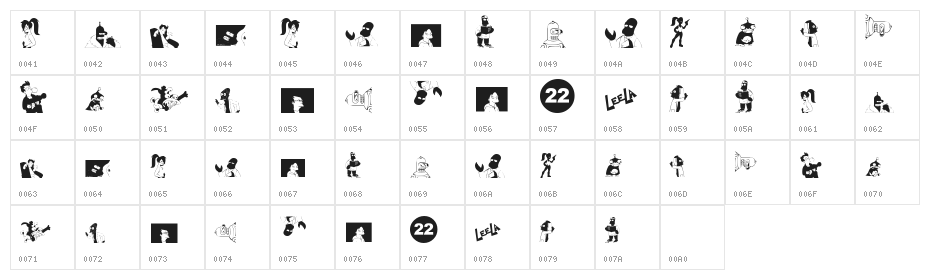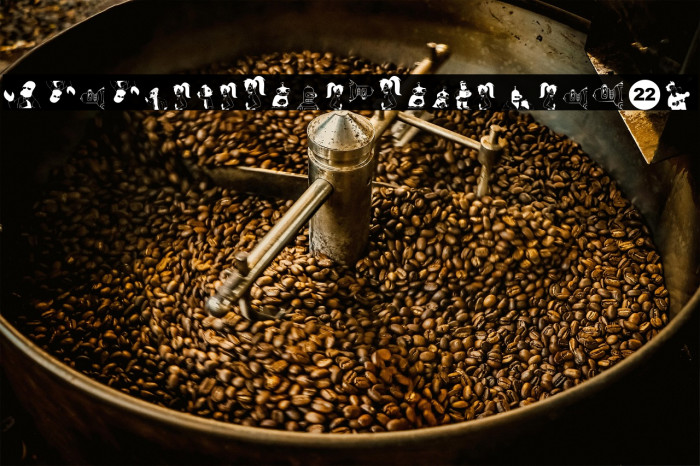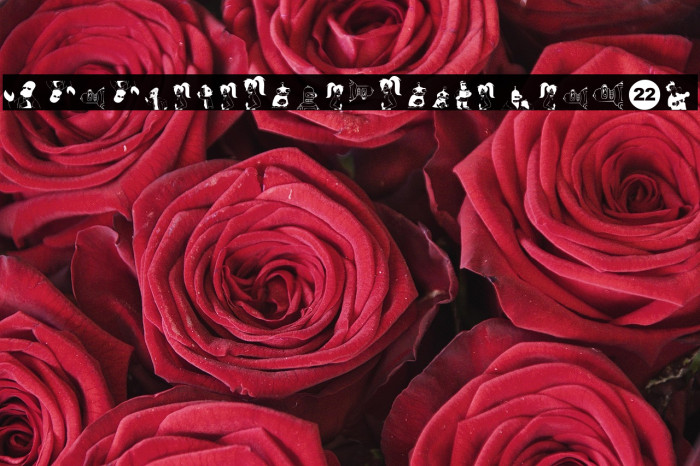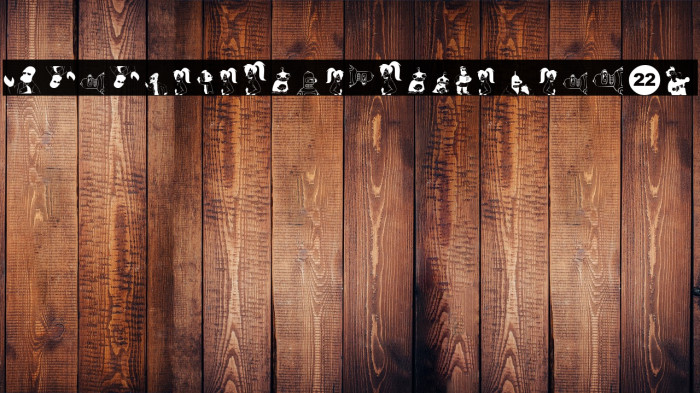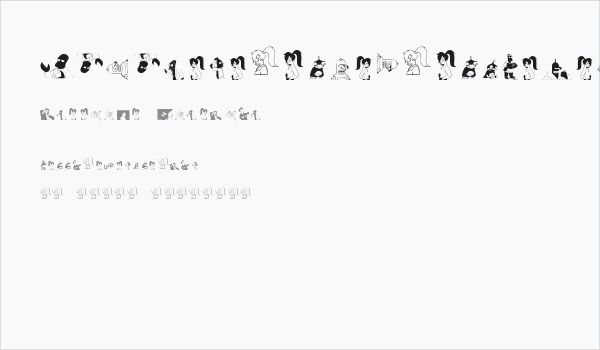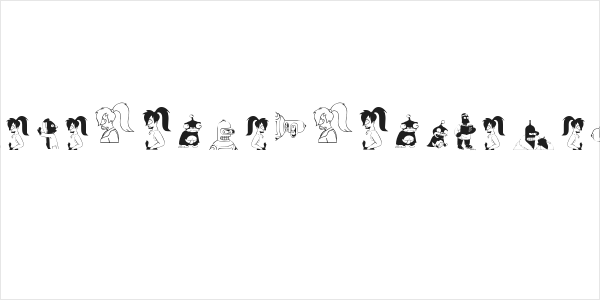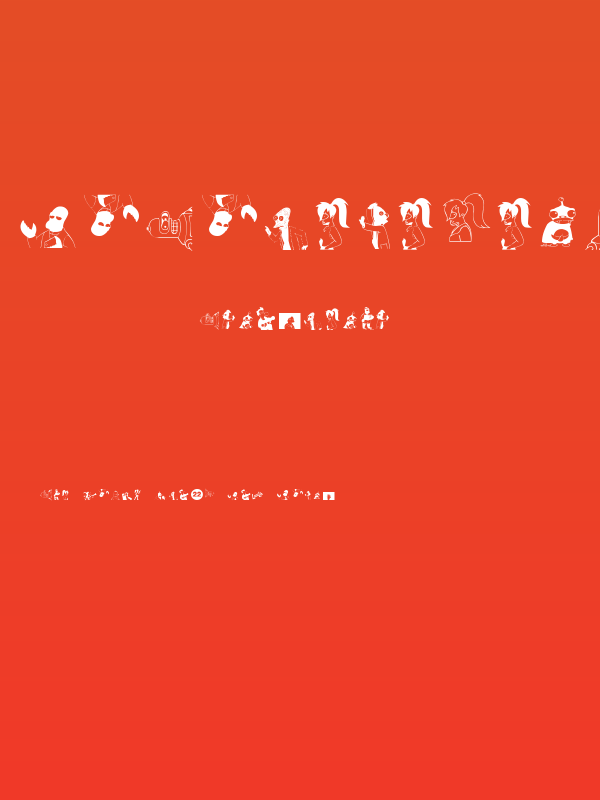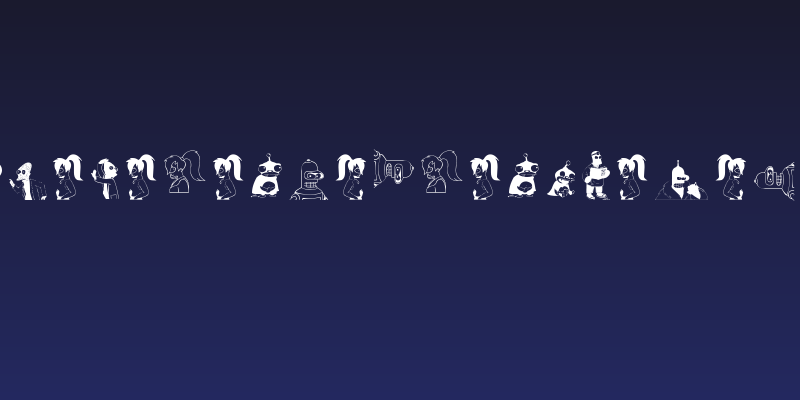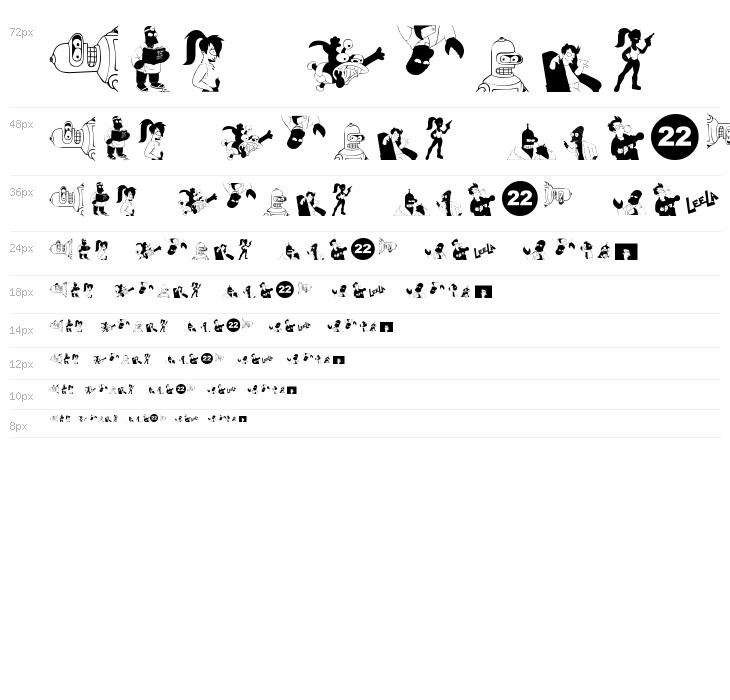
Futurama-Alien-Alphabet-Two Font
Futurama-Alien-Alphabet-Two Description
This is a novelty font featuring characters and symbols inspired by a popular animated series. Each letter and number is represented by a unique character or object from the show, creating a playful and thematic design. The font is highly decorative, with each glyph intricately designed to resemble familiar figures and items from the series. It is not intended for standard text use but rather for creative projects where the theme is relevant. The characters are bold and visually striking, making them suitable for attention-grabbing designs.
| Proposed Projects | Ideal for themed posters, fan art, creative invitations, and novelty merchandise related to the series. |